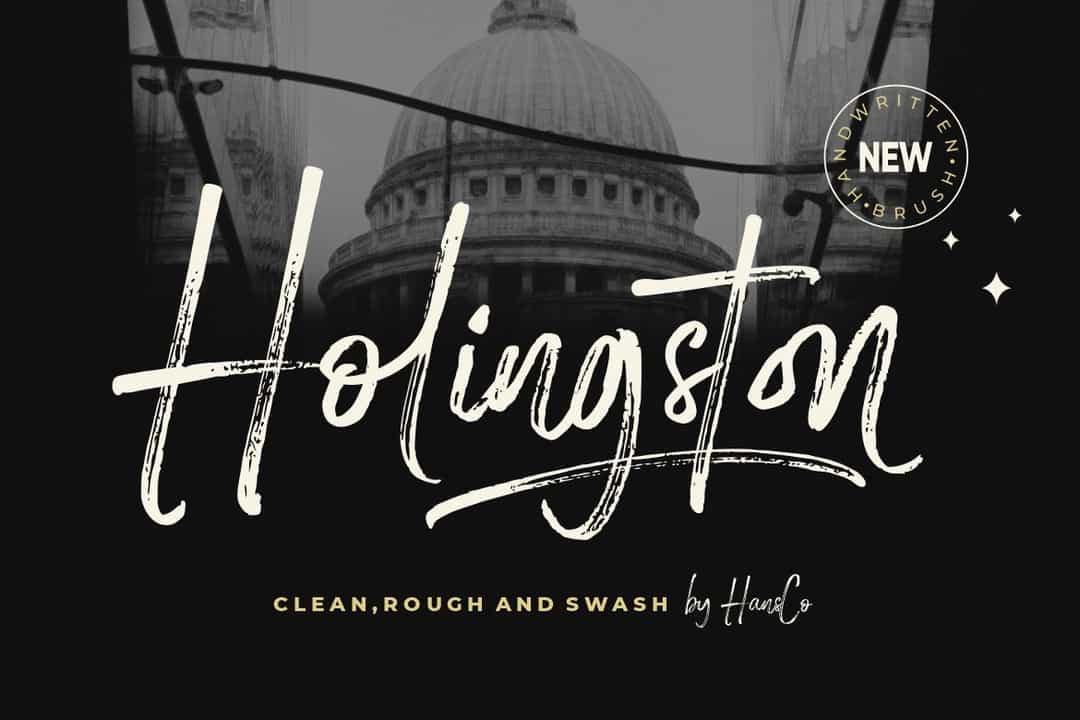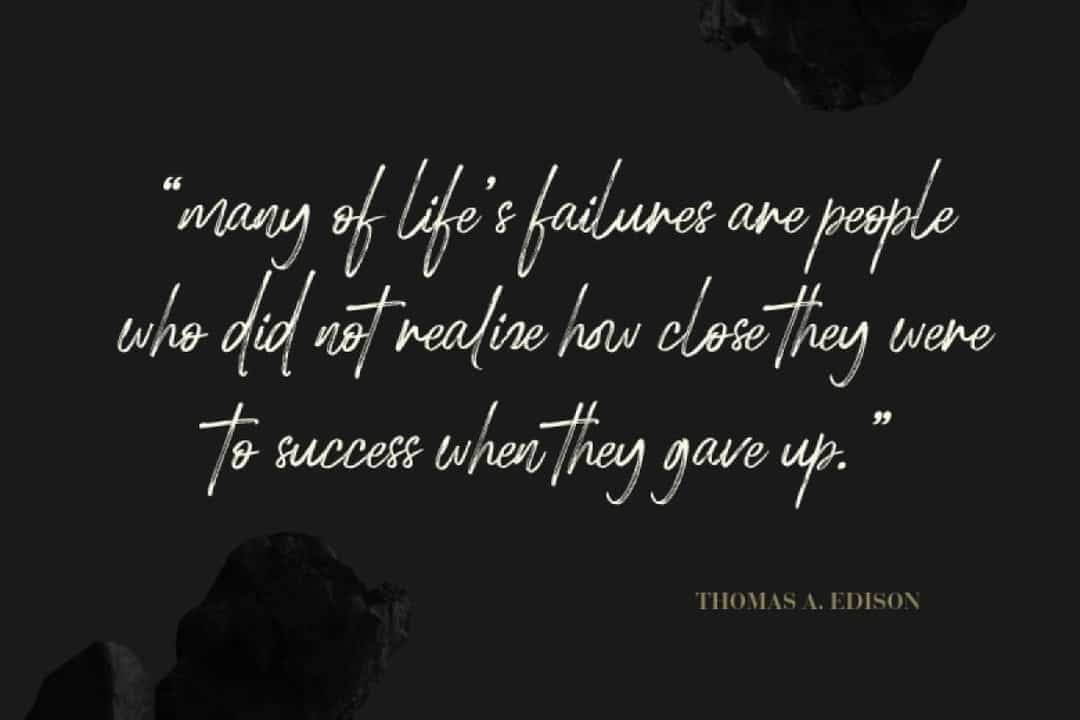
Holingston Font Family is a modern handwritten script typeface which features brush strokes. Ideal for creating striking logos and branding elements as well as eye-catching quotes, each letter in this font offers distinct and attractive designs that help make your designs shine!